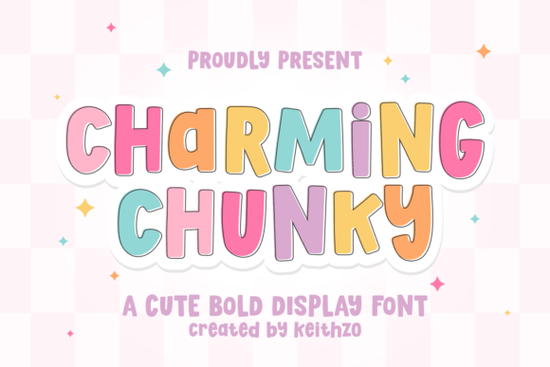
Charming Chunky Font is a standout choice for anyone looking to add a friendly and playful vibe to their designs. This bold display font features soft, rounded edges that give it a warm and approachable feel. Whether you're working on t-shirt designs, social media graphics, or product packaging, Charming Chunky brings a sense of fun and positivity to every project. Its thick letterforms make it easy to read while still maintaining a whimsical aesthetic that’s perfect for a variety of creative applications.
If you’re a designer, crafter, or small business owner, you know how important it is to find the right font to match your vision. Charming Chunky offers a versatile style that works well for kids’ branding, nursery decor, and even trendy stickers. The font includes uppercase and lowercase characters, numbers, and punctuation, making it a complete toolkit for any creative project. It’s especially great for those who want to achieve a kawaii or retro look without sacrificing clarity or readability.
One of the best things about Charming Chunky is its hand-drawn style. This gives each letter a unique, organic feel that stands out from more rigid, standard fonts. It’s ideal for projects that need a personal touch or a more casual, laid-back appearance. The font’s bubbly personality makes it perfect for anything from cheerful quotes to eye-catching headlines. If you're looking for something that feels both modern and nostalgic, this font might be exactly what you need.
How does Charming Chunky compare to other fonts?
When compared to similar fonts like Girls Lover Font or Hoopsy Font, Charming Chunky has a more rounded and approachable look. While some fonts lean toward a more dramatic or edgy style, Charming Chunky focuses on warmth and friendliness. It’s also different from Dust Stamp Font, which has a more rustic, vintage feel. For those who want a bold yet soft typeface, Charming Chunky offers a unique balance that’s hard to find elsewhere.
If you're interested in exploring more fonts with a similar vibe, you might also enjoy Daily Mail Magazine Font. While it has a different purpose, it shares some of the same qualities that make Charming Chunky so appealing like clarity and a friendly aesthetic.
What can you use Charming Chunky for?
Charming Chunky is incredibly flexible. It works well for a wide range of design needs, including:
- T-shirt and hoodie designs
- Tote bags and custom stickers
- Social media quotes and banners
- Product packaging and branding
- Nursery decor and kids' projects
Its bold style ensures that your message stands out, while the rounded shapes keep it from feeling too harsh or aggressive. This makes it a great option for anyone who wants to create a welcoming and positive visual identity.
For print-on-demand sellers, this font can help differentiate your products from the competition. It adds a unique flair that customers are sure to notice. Whether you're designing for a boutique, a small business, or a personal project, Charming Chunky provides the perfect blend of style and functionality.
Why choose Charming Chunky over other fonts?
There are many fonts available online, but not all of them offer the same combination of charm and clarity. Charming Chunky stands out because it’s designed with both aesthetics and readability in mind. It’s not just about looking good it’s about making sure your message is easy to understand. This is especially important for branding and marketing materials where clarity is key.
The font’s versatility also makes it a valuable addition to any designer’s collection. It can work in both digital and print formats, and it adapts well to different sizes and contexts. Whether you're creating a large banner or a small sticker, Charming Chunky maintains its character and appeal.
If you're looking for a font that feels both modern and nostalgic, Charming Chunky is an excellent choice. It’s perfect for anyone who wants to bring a little more joy and positivity into their designs.